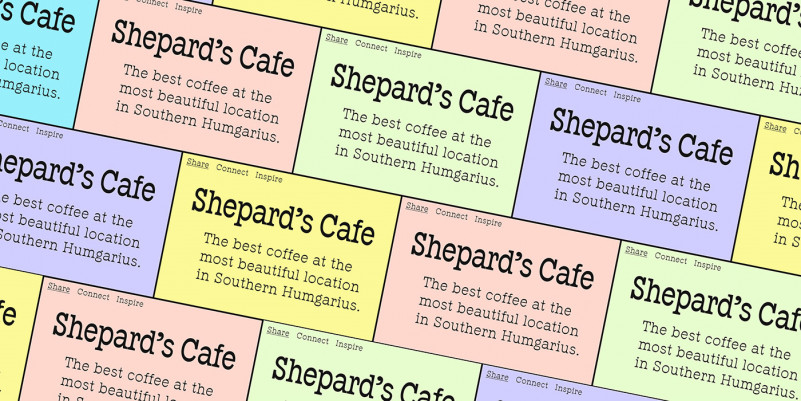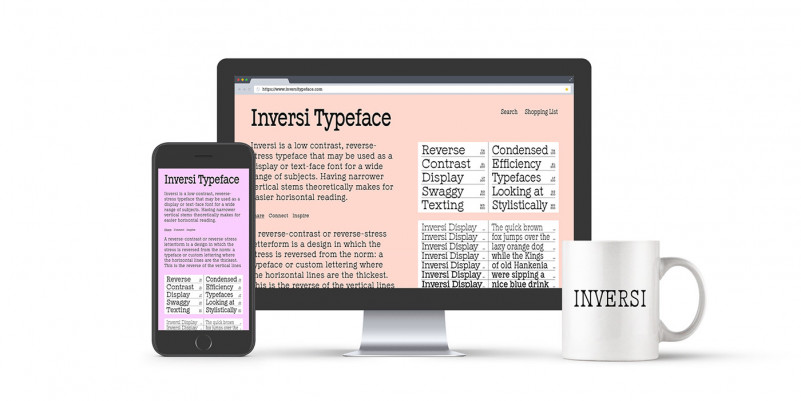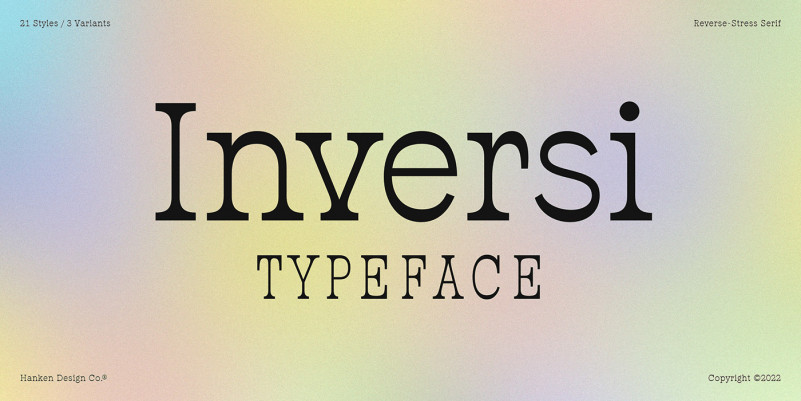
Inversi Font Family
Inversi is a reverse-stress typeface that may be used as a display or text-face font for a wide range of subjects. Compared to other reverse-stress/reverse-contrast typefaces, Inversi’s linear contrast is much lower which, at lower sizes, makes it a good options for text or captions. It has good language support, unique design, fractions, and three different widths.
Inversi pairs well with HK Requisite. Use the narrow or condensed style when mixing with HK Requisite to give more contrast to the composition.